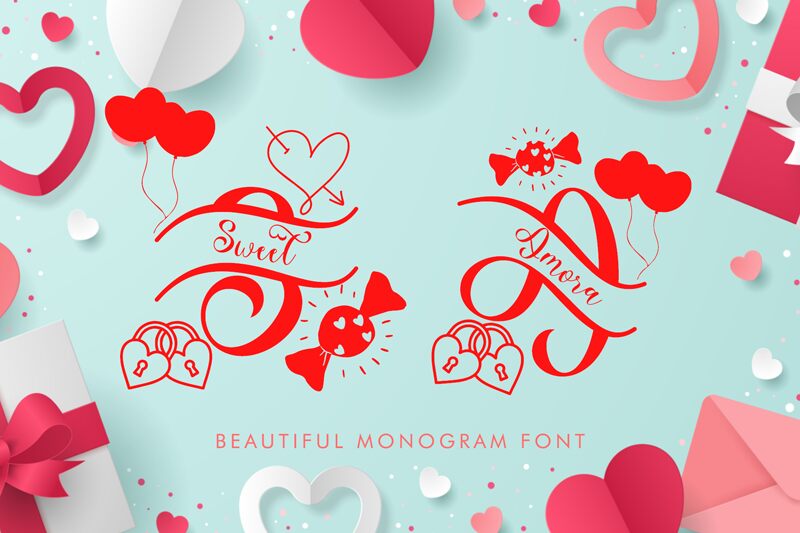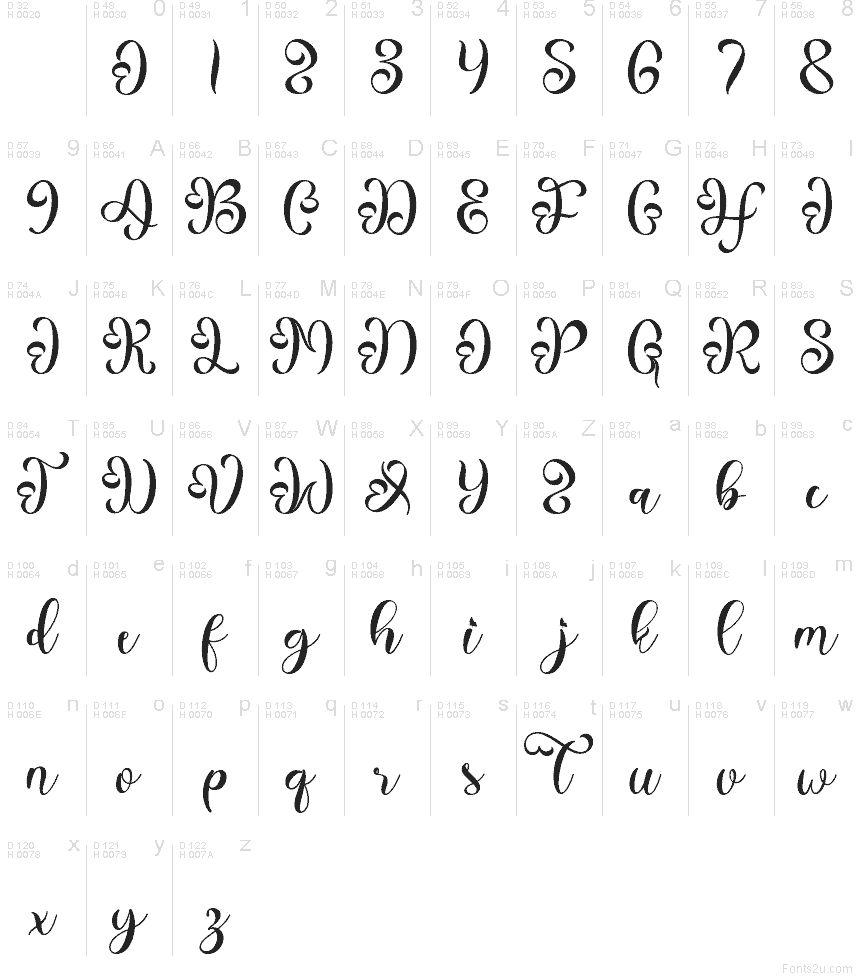
Sweet Amora Demo
Sweet Amora font by Yoga Letter is a free Valentine calligraphy typeface that feels like it was brushed straight from an inky love note. Tall, flowing letters curl into generous swashes, while the slightly uneven strokes keep it warm and human rather than stiff or formal. There’s a soft, romantic rhythm to the script that makes every word look like a little piece of hand-lettered art.
Using Sweet Amora, romantic projects fall into place quickly—think Valentine cards, wedding invitations, love quote prints, chocolate or perfume packaging, boutique logos, and gift tags. This free font shines when you give it space to breathe and set it large, letting the curls and loops really show. For a simple pairing, match Sweet Amora with a clean, light sans serif for supporting text so the script can take center stage.